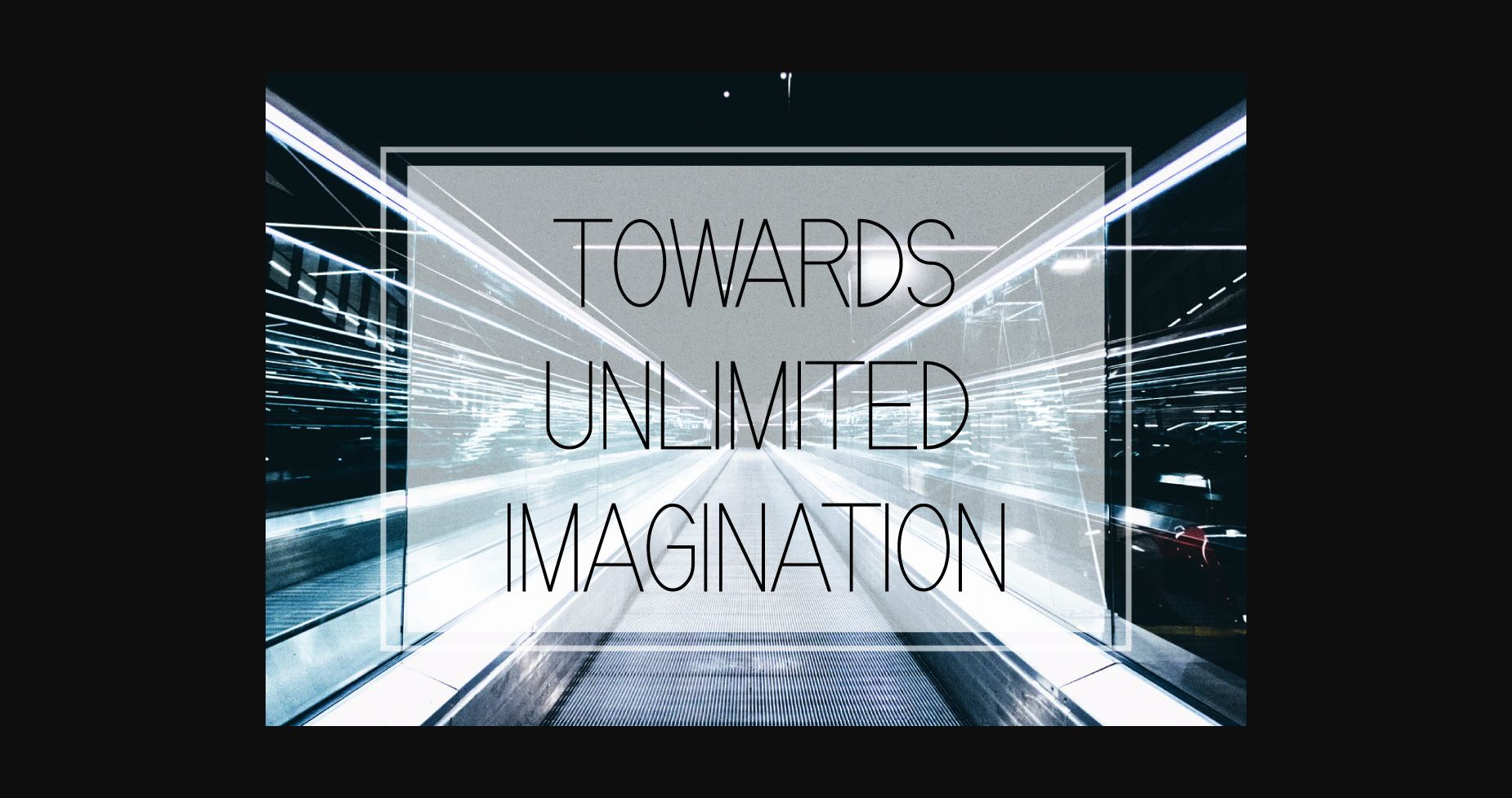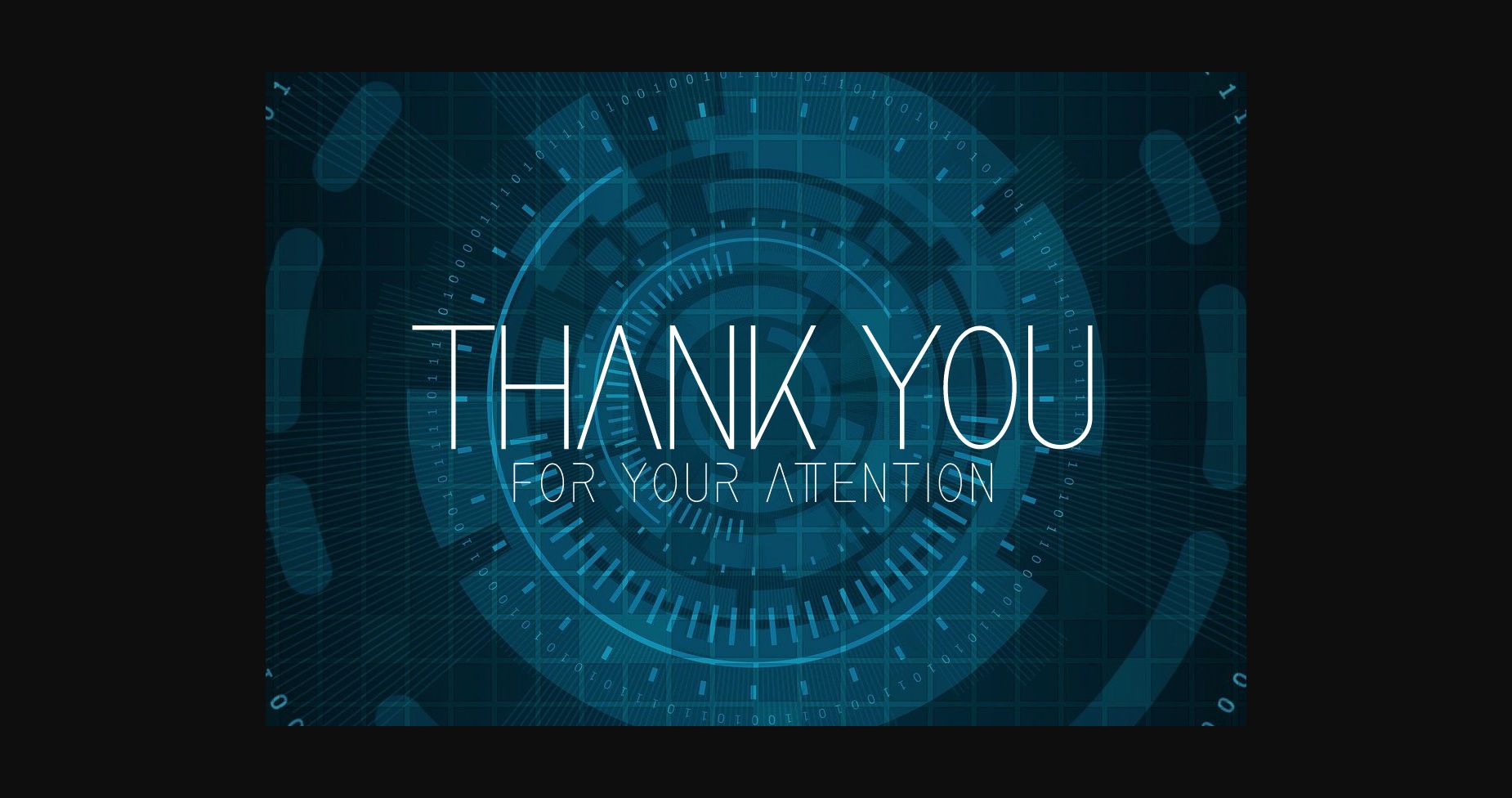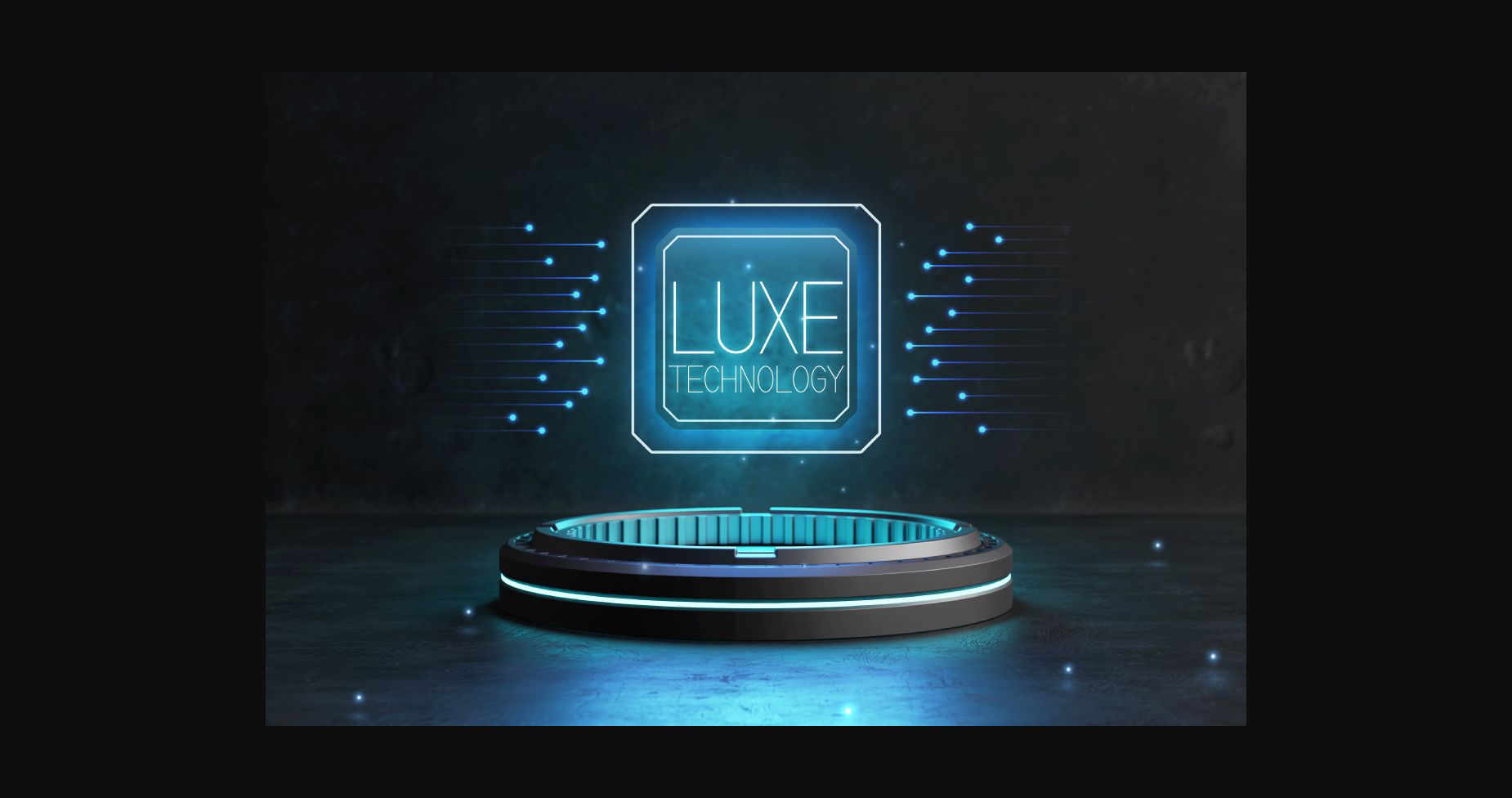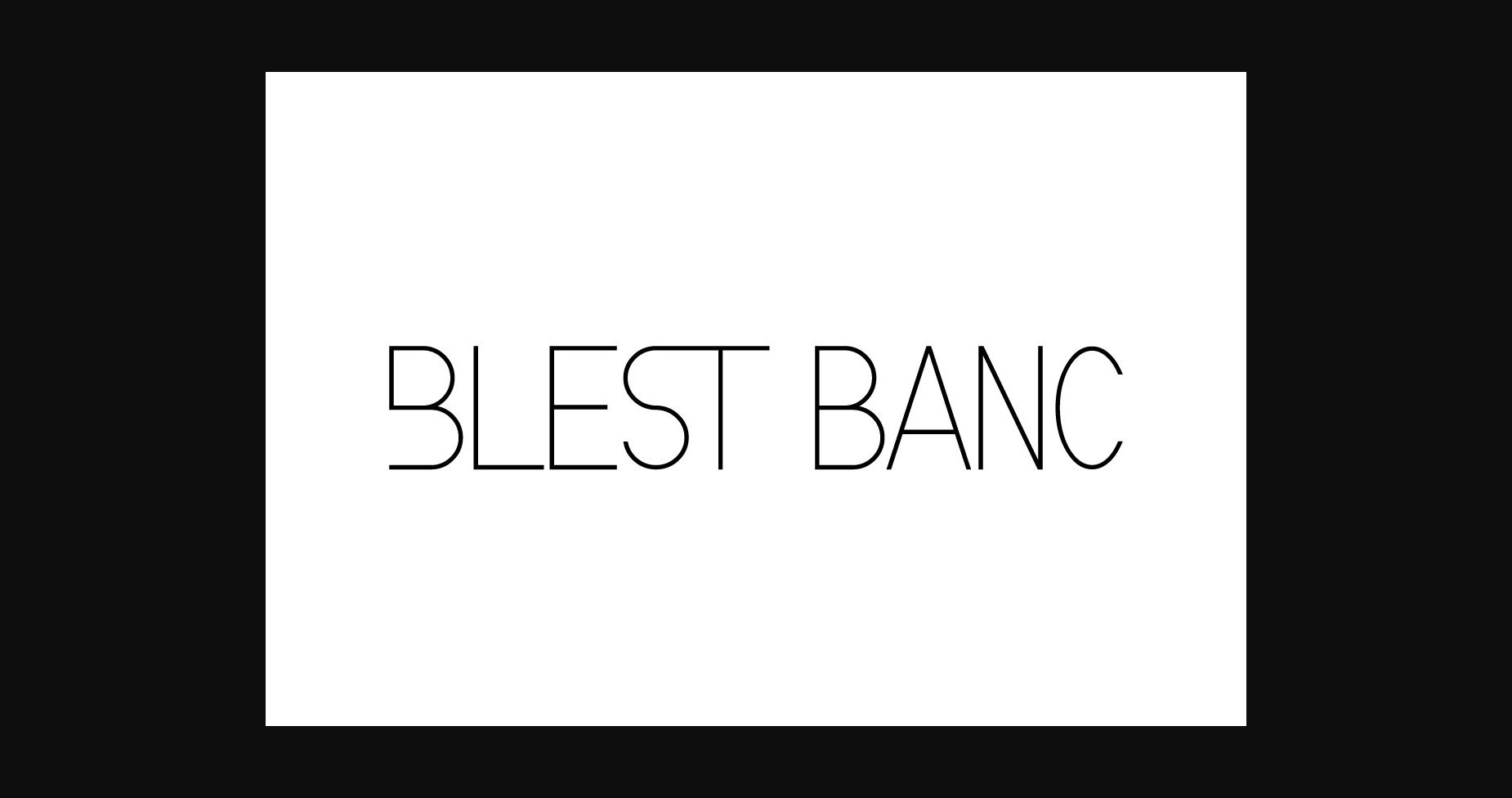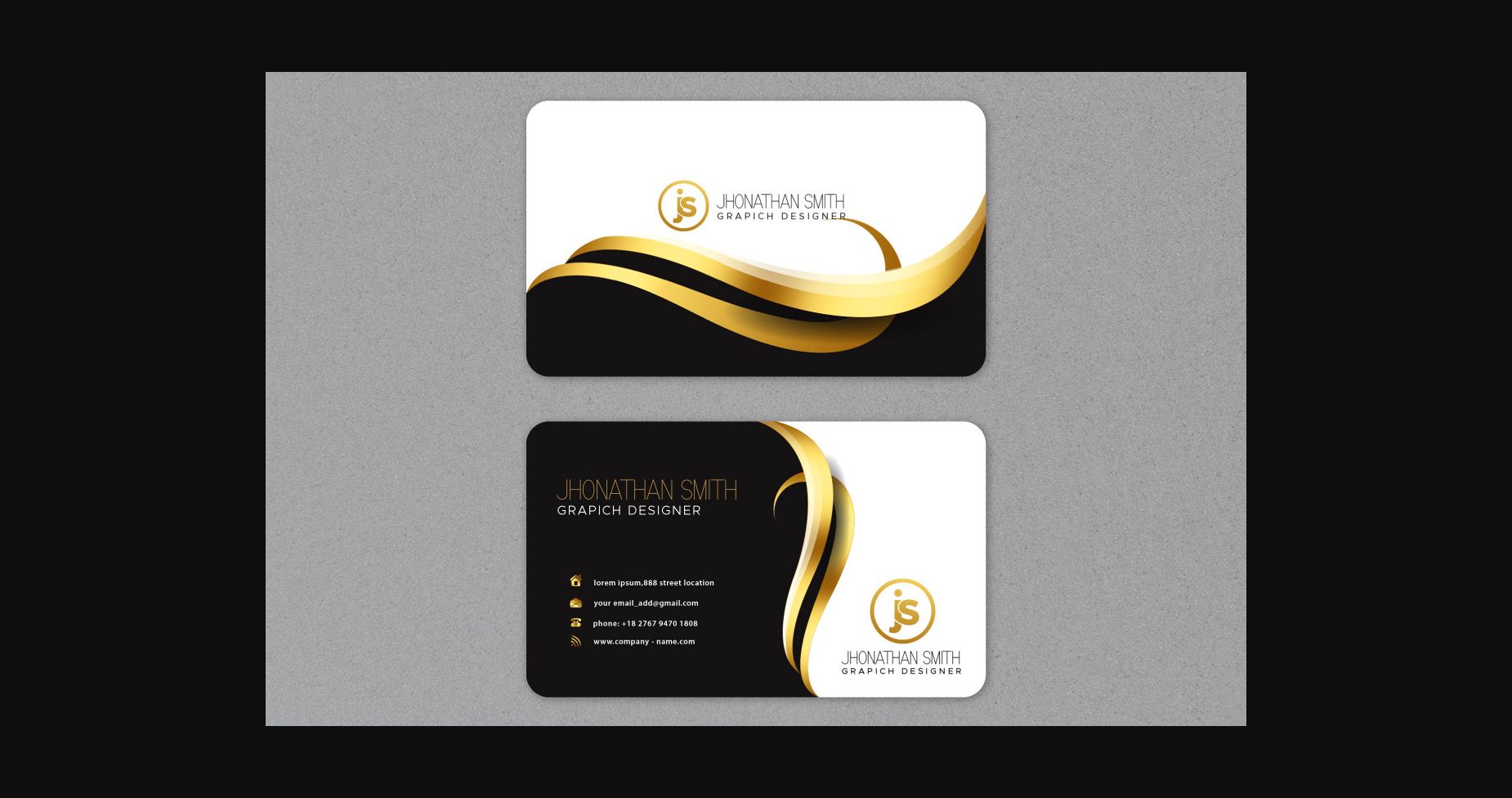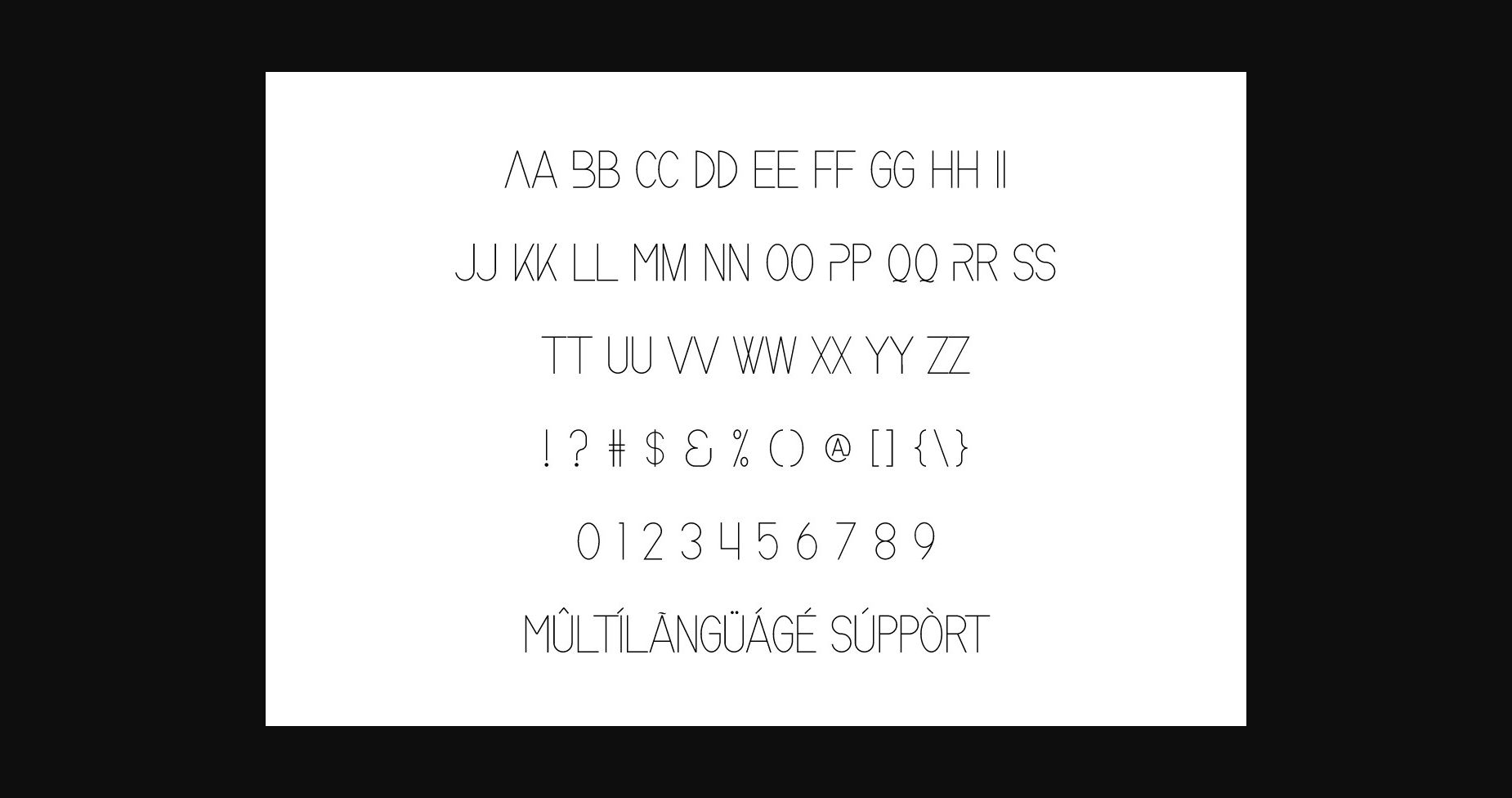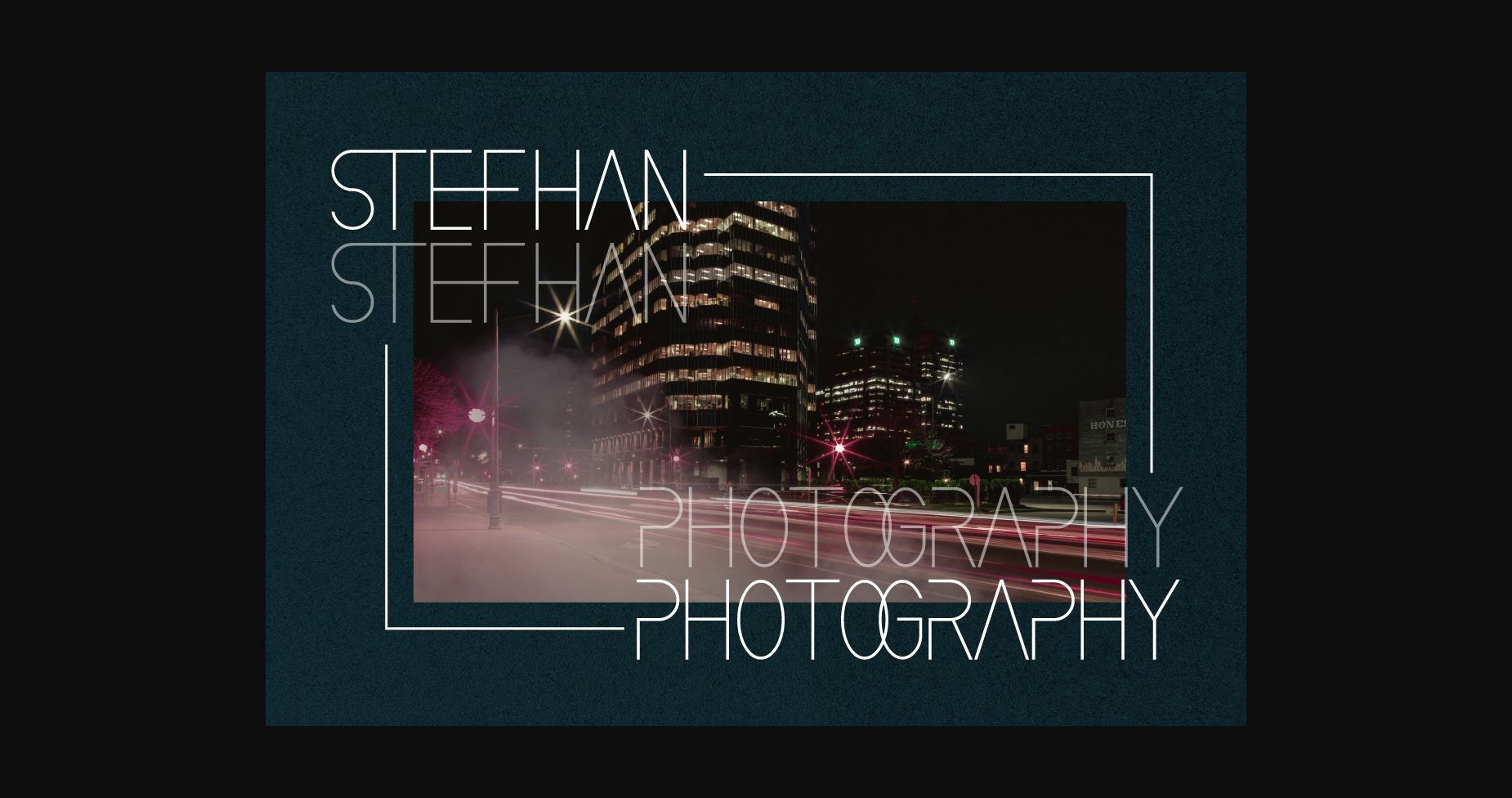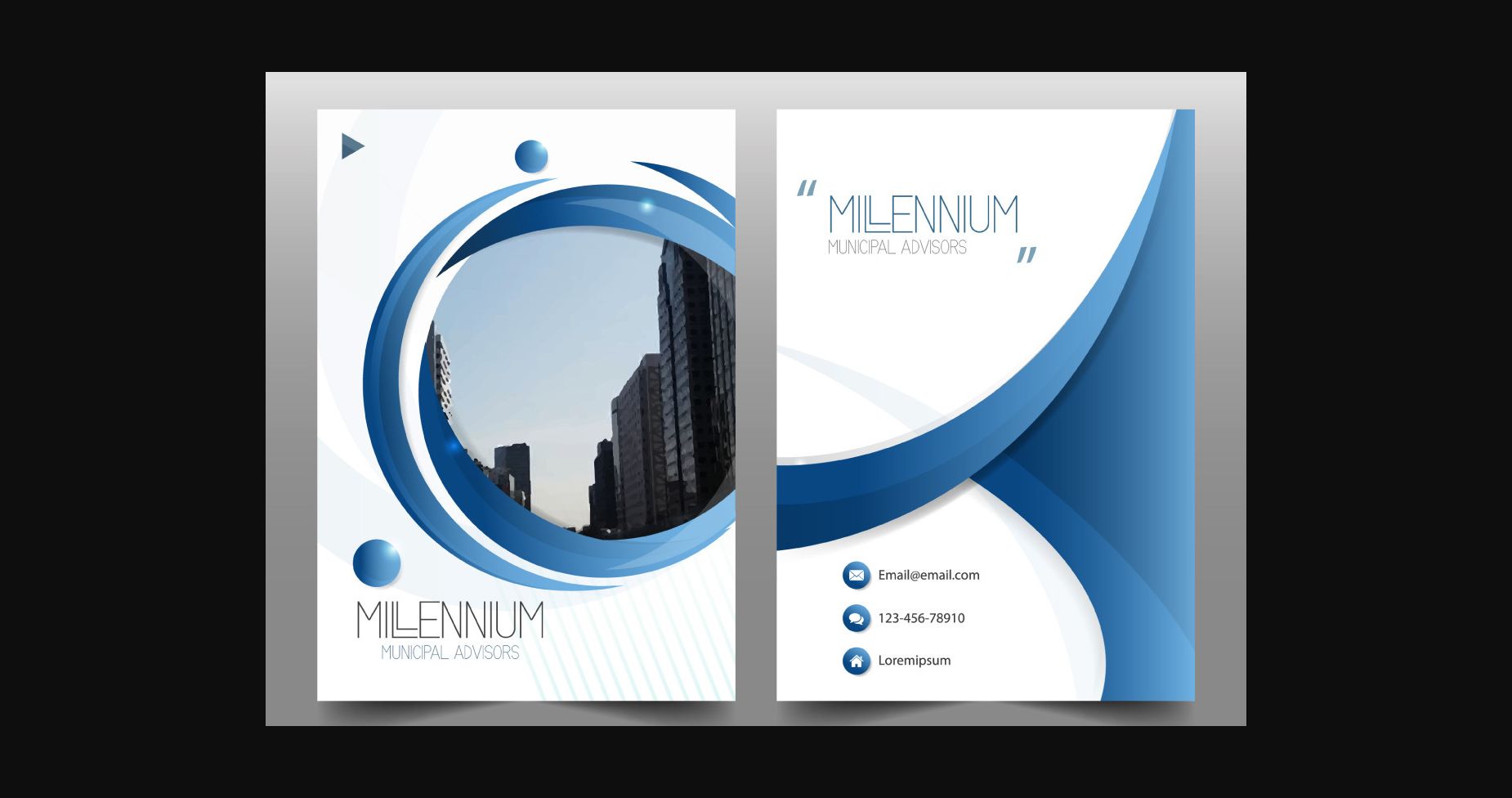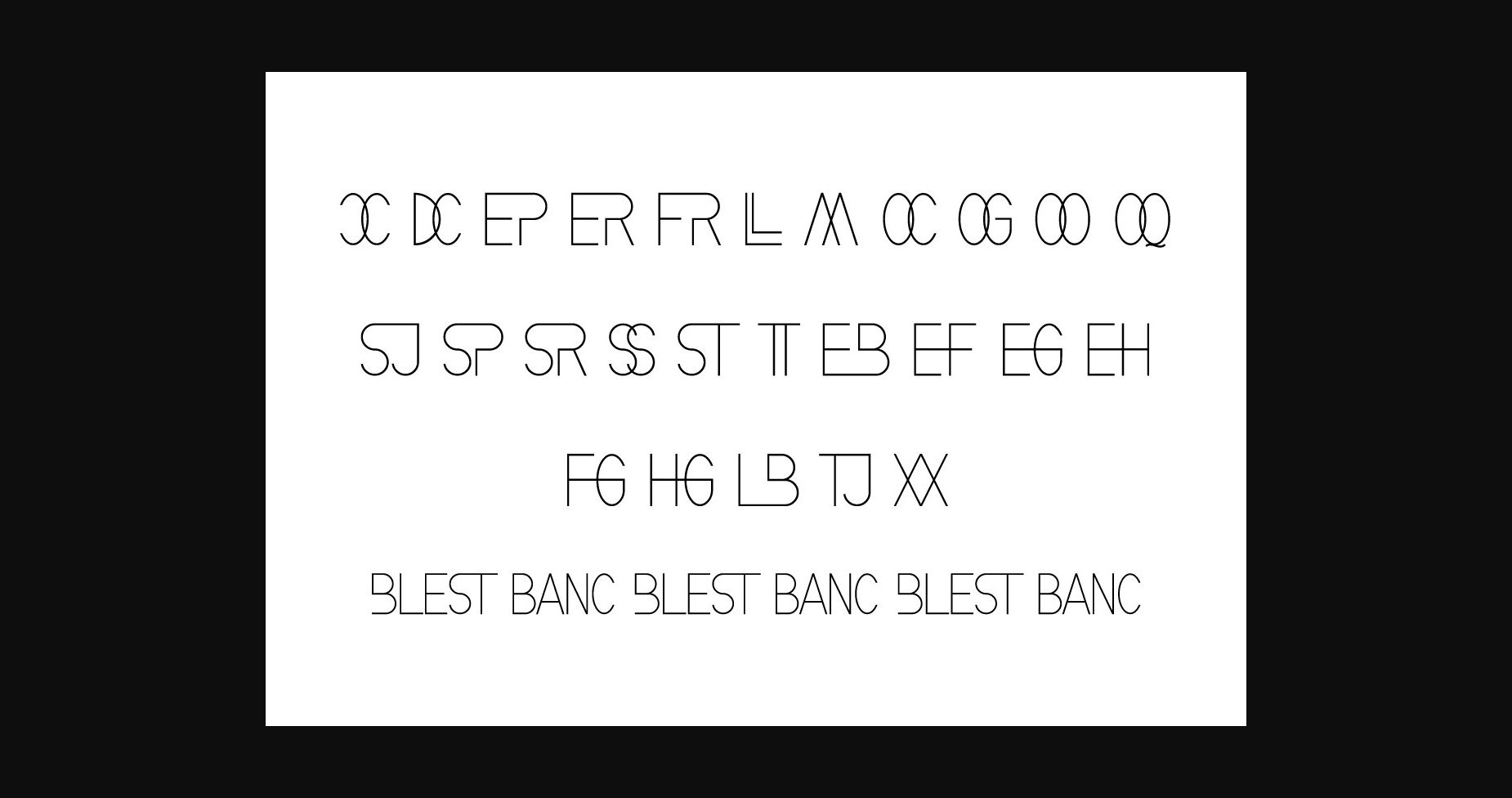
Blest Banc Font
About Blest Banc Font
Blest Banc is a thin and clean sans serif font. It can easily be matched to an incredibly large set of projects, so add it to your creative ideas and notice how it makes them stand out! Blest Banc is PUA encoded which means you can access all glyphs and swashes with ease!